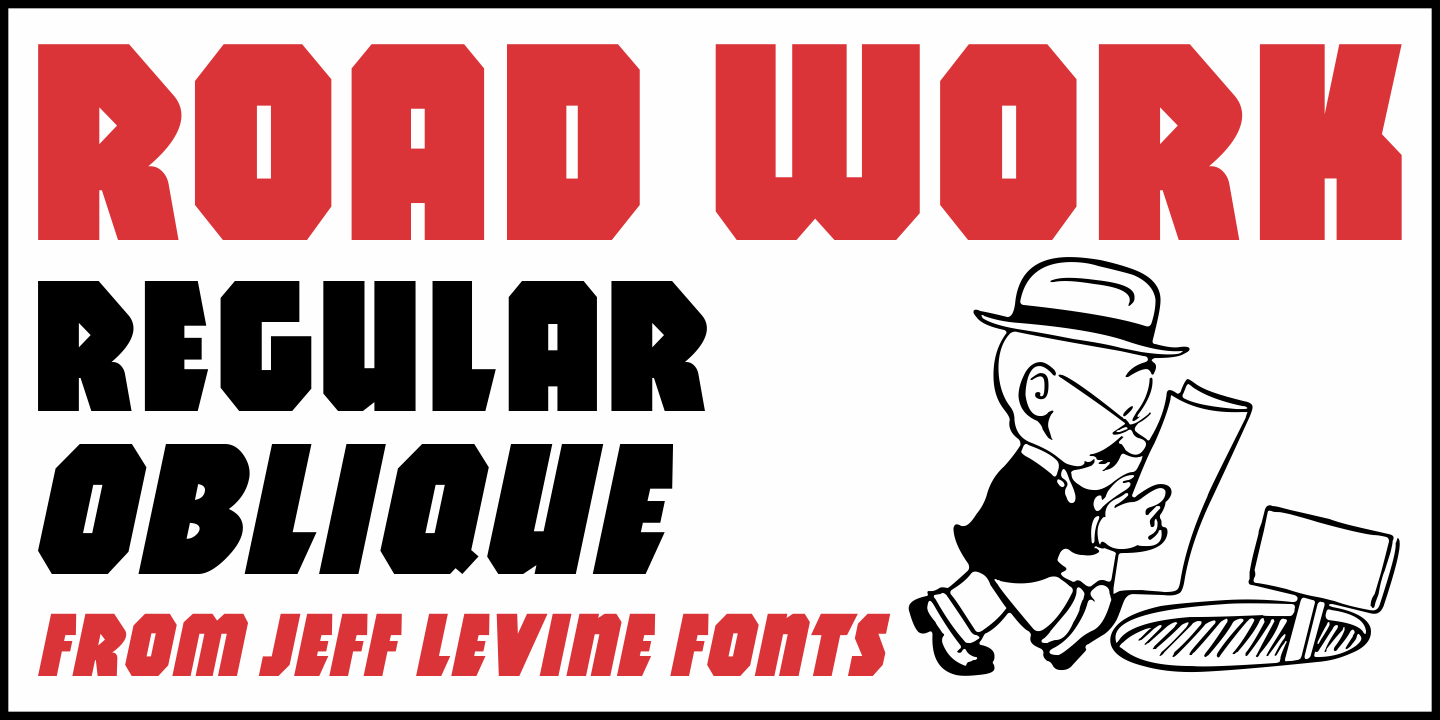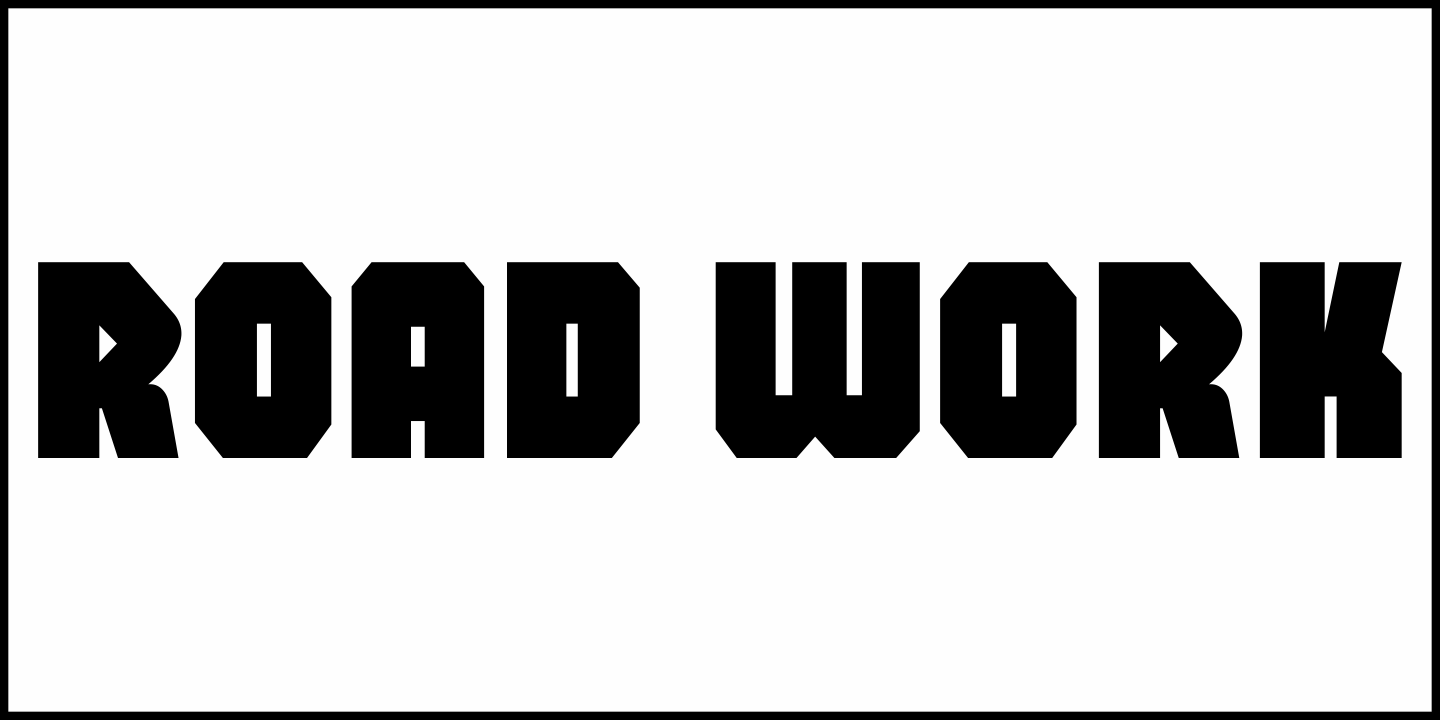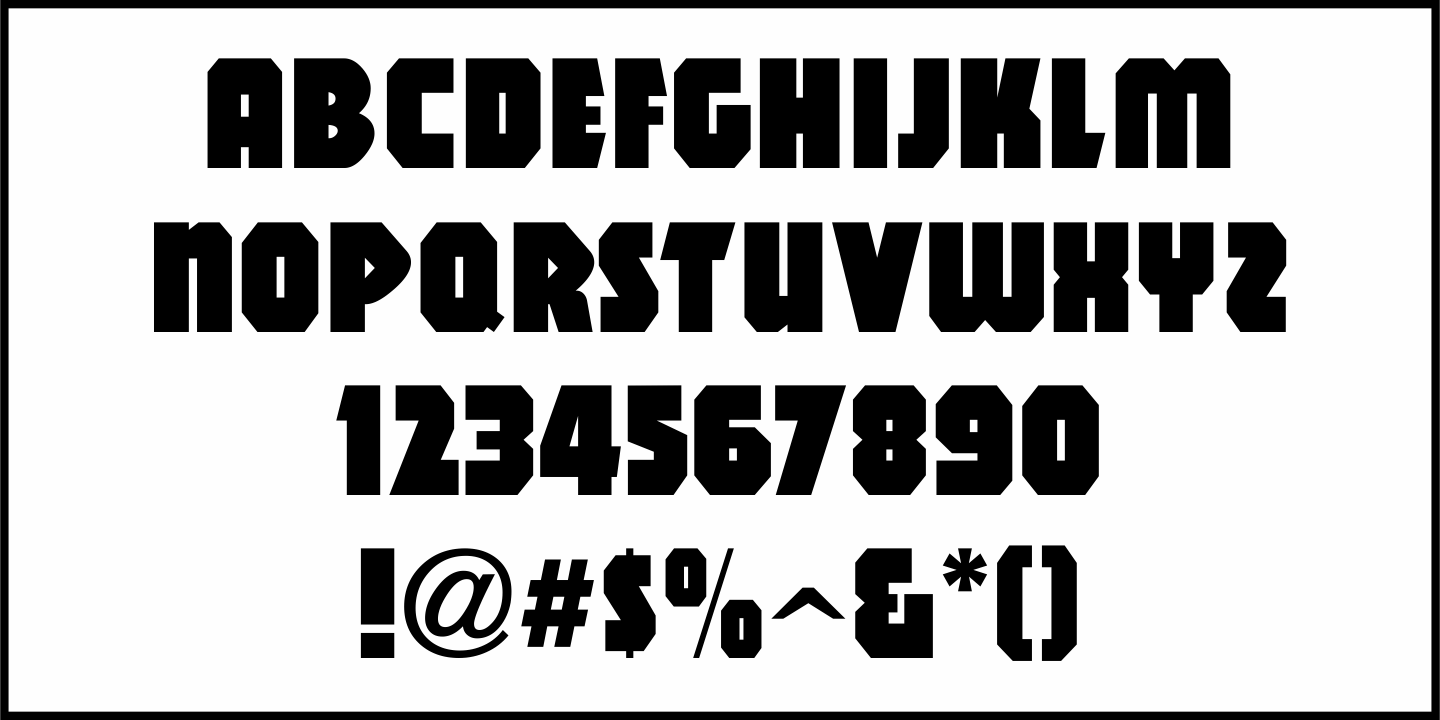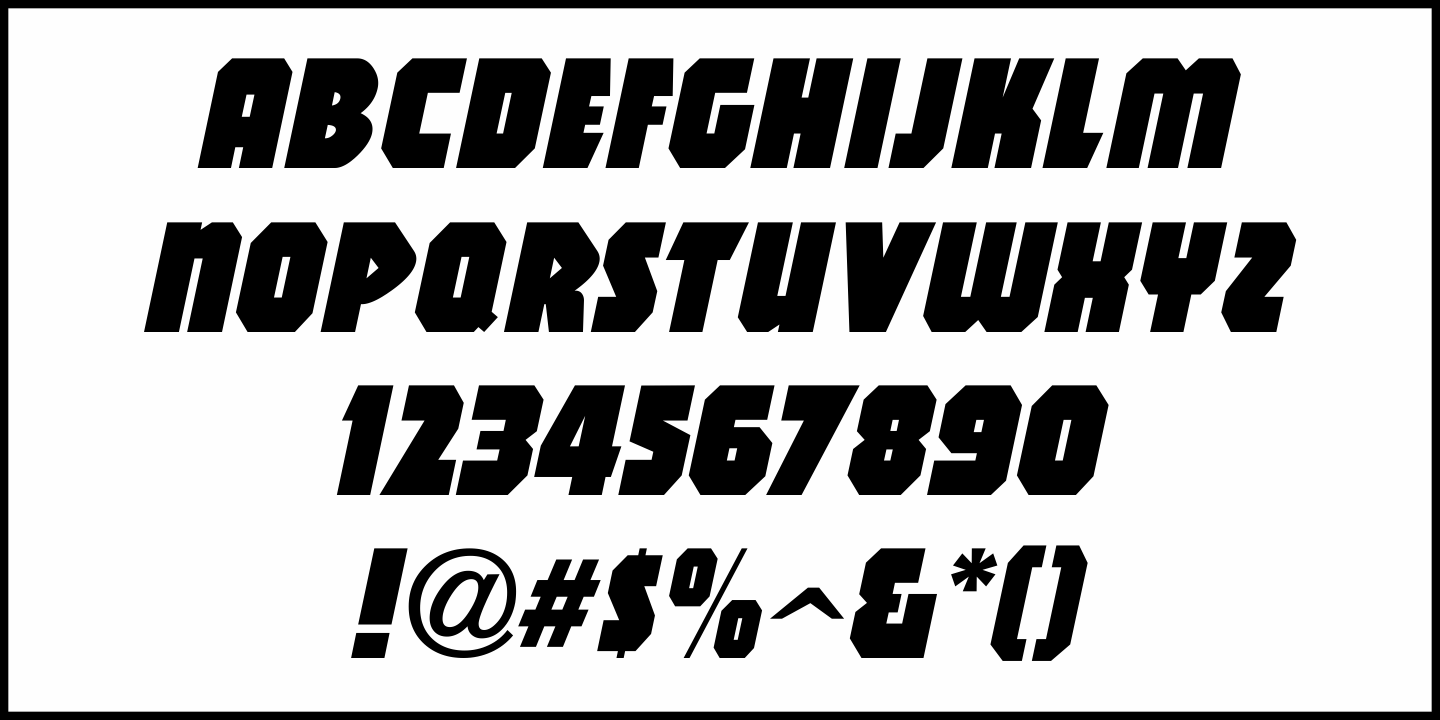
Road Work
The October 5, 1935 issue of 'Universal Weekly' (a publication detailing current film releases from Universal) was promoting the film 'Remember Last Night'.
Hand lettering used for this advertisement was an ultra-bold sans serif design with chamfered corners and some stylized characters.
This is now available digitally as Road Work JNL in both regular and oblique versions.